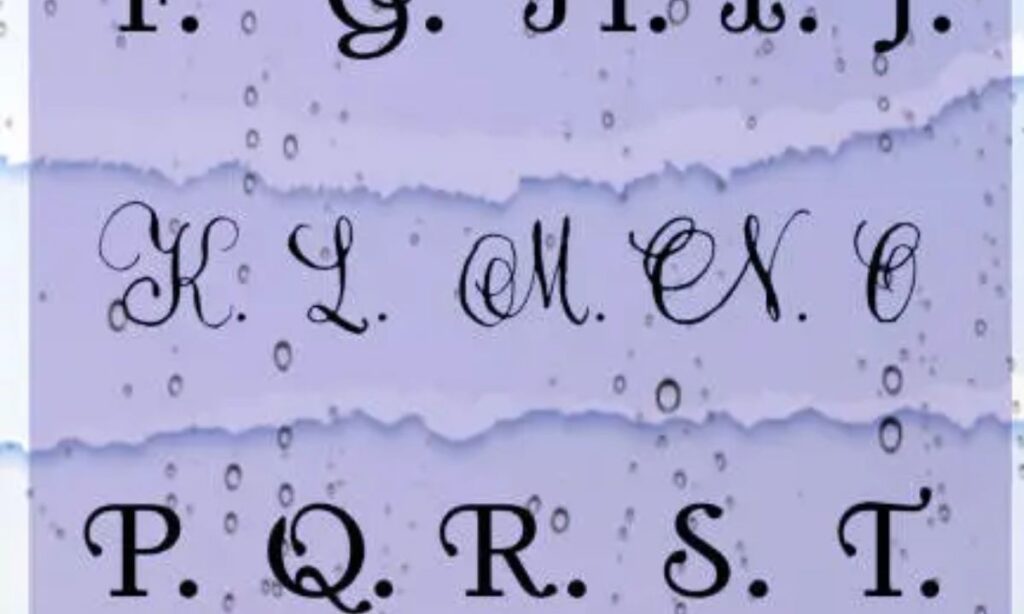
Font Generator Free โ€“ ๐“’๐“ธ๐“น๐”‚ & ๐“Ÿ๐“ช๐“ผ๐“ฝ๐“ฎ 100+ Fancy Stylesย
Font Generator Free
Plain captions look boring across social apps and gaming profiles. Our team tested every font generator using mobile keyboards and browser tools. A free font generator creates readable fancy fonts instantly. Most users prefer quick copy and paste font generator tools for bios.
Clean symbols improve profile clicks and comment visibility across USA social platforms. A fancy text generator converts plain words into stylish layouts within seconds. Many creators use a text font generator beside a font changer daily. Readers copy free copy and paste fonts from a unicode font generator safely. Gamers often select cool text generator, stylish text generator, text styles, stylish fonts, and cool fonts for usernames.
Why Unicode Text Boosts Conversions
Plain captions disappear quickly across crowded social media feeds and business promotions. Unicode supports universal characters, symbols, and unique glyphs across modern devices. A reliable font generator transforms regular words into fancy text with stronger attention value. Most brands use copy and paste features for faster posting across Instagram and Facebook.
Our team tested font generator free tools using multiple browsers and mobile platforms daily. Strong compatibility improves customer trust because readable text keeps visual engagement steady. Smart encoding handles binary systems and complex character encodings without broken layouts. Popular Mathematical Alphanumeric Symbols and fancier symbols help promotions standout under crowded USA campaigns.
Best Styles for Marketing
Style Selection by Goal
Weak branding loses clicks across crowded USA social campaigns using font generator free tools. Luxury stores prefer cursive, calligraphy, serif, and script designs for premium branding. Youth pages choose graffiti, bubble, cute, hearts, emojis, and bubble font layouts. Tech brands perform better using monospace, future alien, glitch, wide, and strange formats.
High Conversion Style Examples
Our team tested banners using bold, bold script, bold text, italic, underline, and double underline combinations. Gaming promotions gained attention using old english, medieval, vaporwave, flip, and creepify text styles. Product ads improved readability through typewriter, small text, tiny text, superscript, subscript, symbols, double struck, squares, inverted squares, neon, and strikethrough effects.
Platform Tactics That Drive Sales
Instagram TikTok and Facebook
Weak posts disappear fast across crowded social media feeds and scrolling mobile audiences. Strong bio lines improve clicks across Instagram, TikTok, and Facebook business pages. Smart captions, engaging stories, and branded Reels increase customer response rates quickly. Our team tested text overlays using font generator free tools across trending USA campaigns.
Email SMS and Ads
Unread promotions hurt e-commerce sales when plain headline text blends with competitors. Clear email, SMS, and display ads improve opening rates through stronger visual structure. Better product titles and detailed descriptions support cleaner copy and paste formatting online. Reliable platform compatibility prevents broken rendering errors, strange boxes, and failed messaging across YouTube, Discord, Reddit, Quora, gaming, and wedding invitations using branded digital signature styles.
Brand Alignment Strategies
Matching Styles to Brand Personality
Mixed fonts confuse buyers and weaken strong brand personality across USA digital campaigns instantly. Smart pairing improves trust, supports fun, and increases customer impulse during promotions. Many luxury brands use cursive for premium, while sports pages prefer bold for energy. Our designers map brand voice using archetypes and a tested personality matrix structure.
Typography Hierarchy and Pairing
Poor layouts damage accessibility when readers miss important details during mobile shopping sessions. Clear typography hierarchy improves scanning speed through stronger visual hierarchy and balanced contrast. Good legibility supports Section 508 standards across websites, emails, and online advertisements. Tested font generator free layouts strengthen visual flow for premium, playful, and authoritative branding.
Risks and Fixes
Unreadable text frustrates visitors when strange boxes replace symbols across important business pages. Poor compatibility causes serious rendering issues between older devices, modern browsers, and large websites. Heavy overuse creates negative spam perception and weakens customer trust during advertising campaigns. Some layouts create accessibility barriers because certain websites may not support decorative Unicode formats.
Our team checks font generator free results using strict testing protocols before public launches. Smart fallback strategies protect SEO performance when text fails across mobile applications and desktops. Balanced hybrid approaches improve readability while respecting strict platform policies and important security reasons. A detailed mitigation checklist reduces load implications during high traffic USA marketing campaigns.
A font generator free tool is the simplest way to transform plain text into eye-catching, stylish fonts that stop the scroll. Whether you are building your Instagram bio, gaming username, or brand caption, copy and paste fancy fonts instantly boost your visibility across every platform.